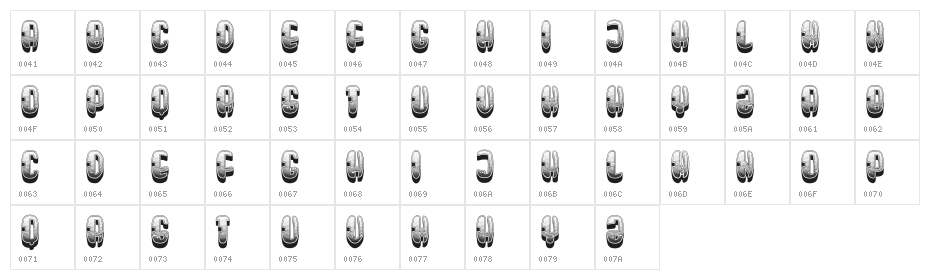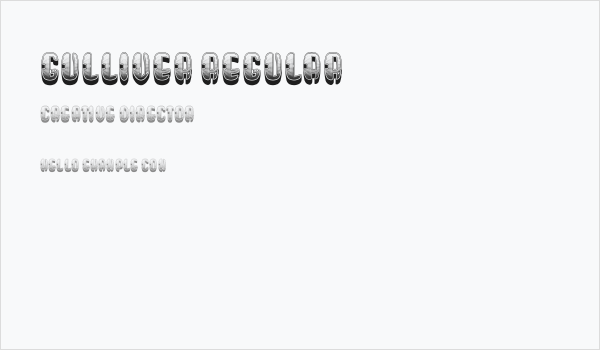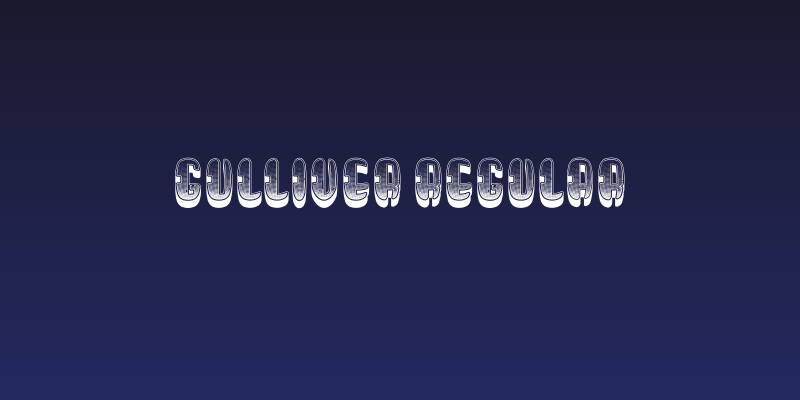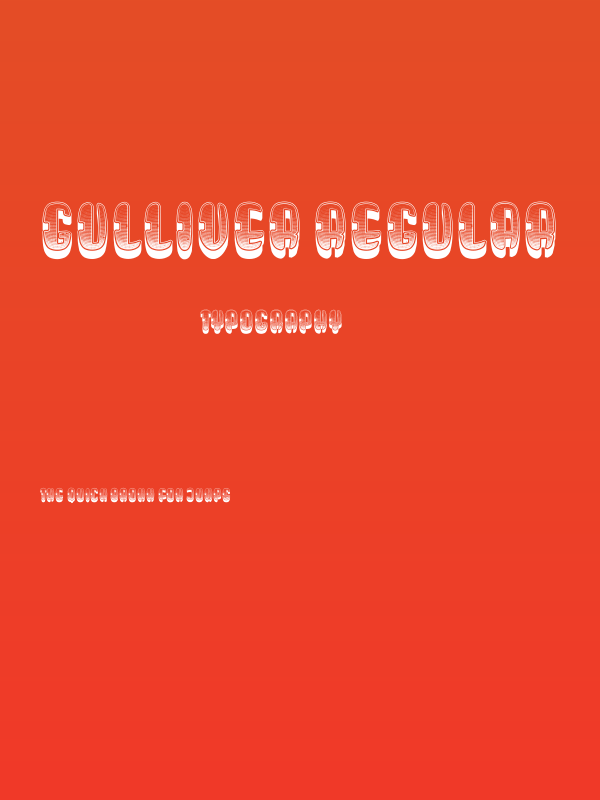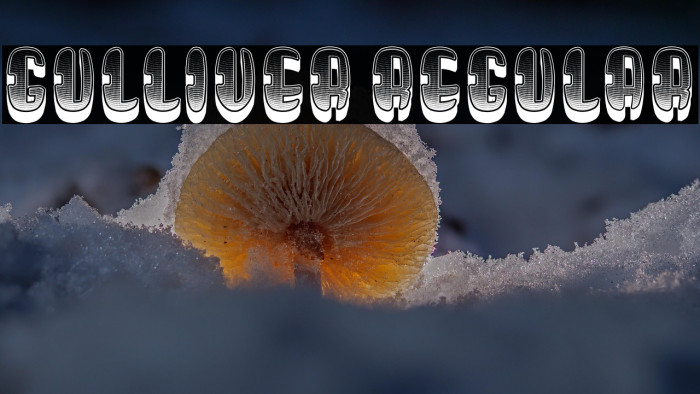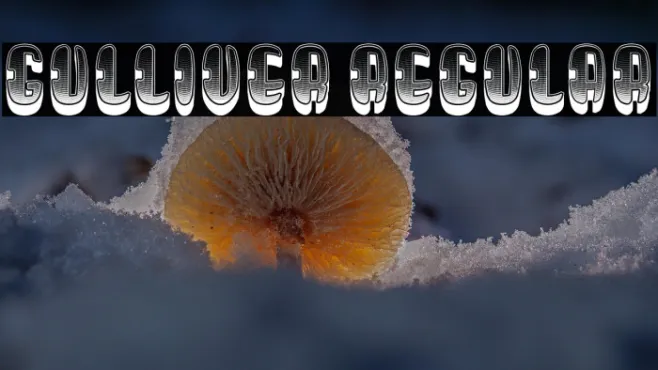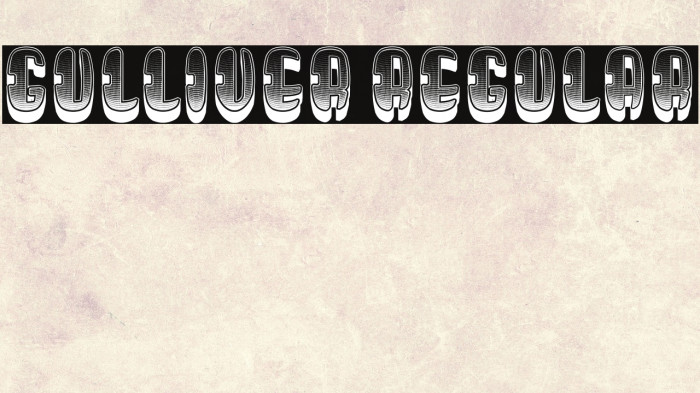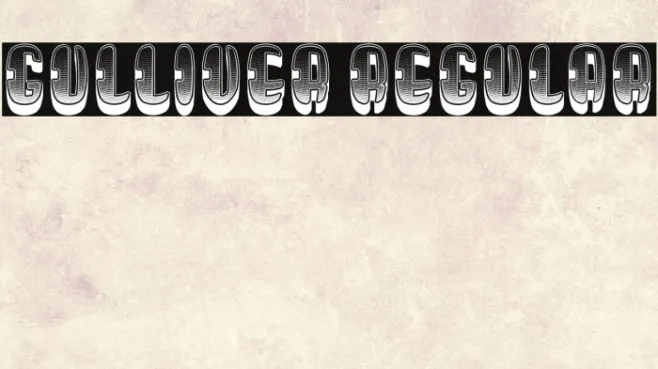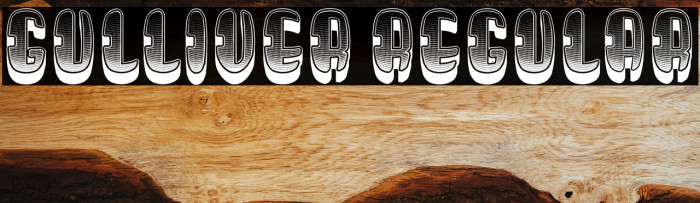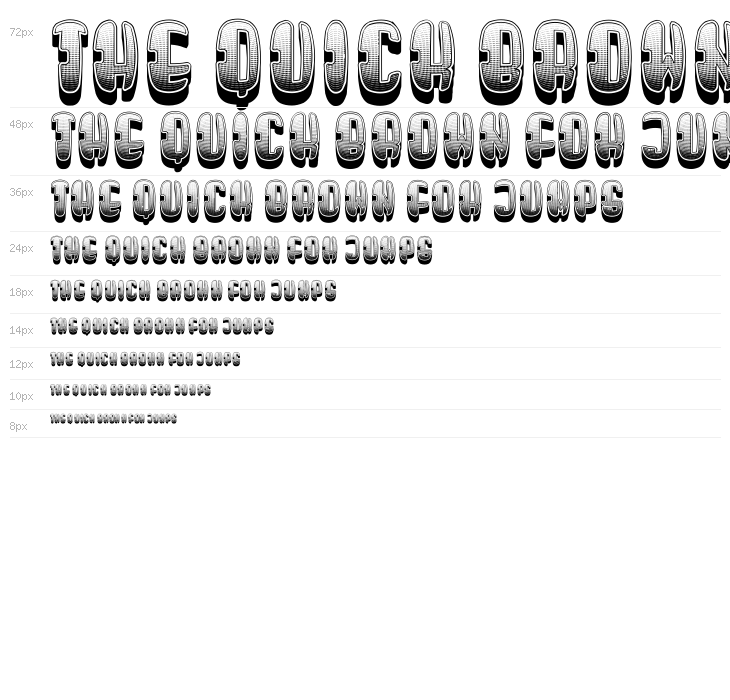
Gulliver Regular Font
Gulliver Regular Description
This font features a bold, decorative style with a three-dimensional effect created by intricate shading and outlines. Each character is designed with a playful, rounded form, giving it a unique and eye-catching appearance. The letters have a consistent width and a slightly condensed form, enhancing their visual impact. The internal detailing adds depth and texture, making the font suitable for creative and artistic projects. The overall style is both modern and retro, blending contemporary design with vintage elements.
| Overall Style | Modern, Vintage |
| Proposed Projects | Ideal for posters, logos, branding, and any project requiring a standout, artistic typeface. |